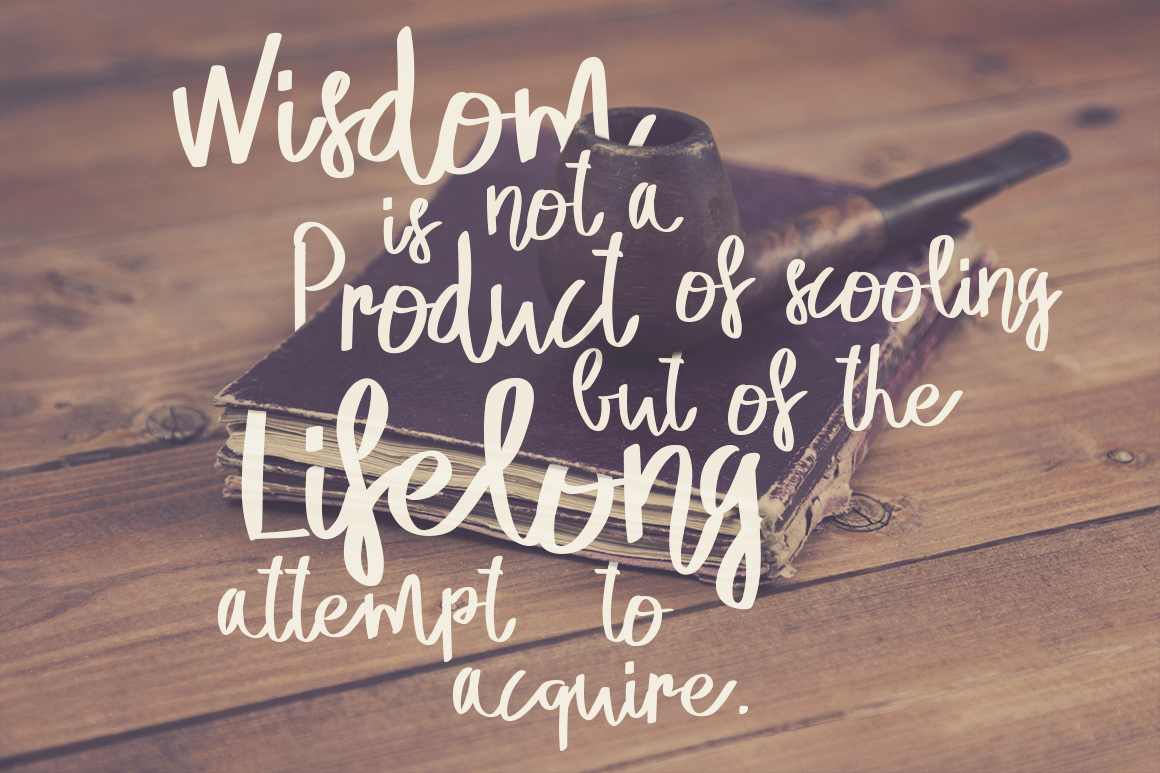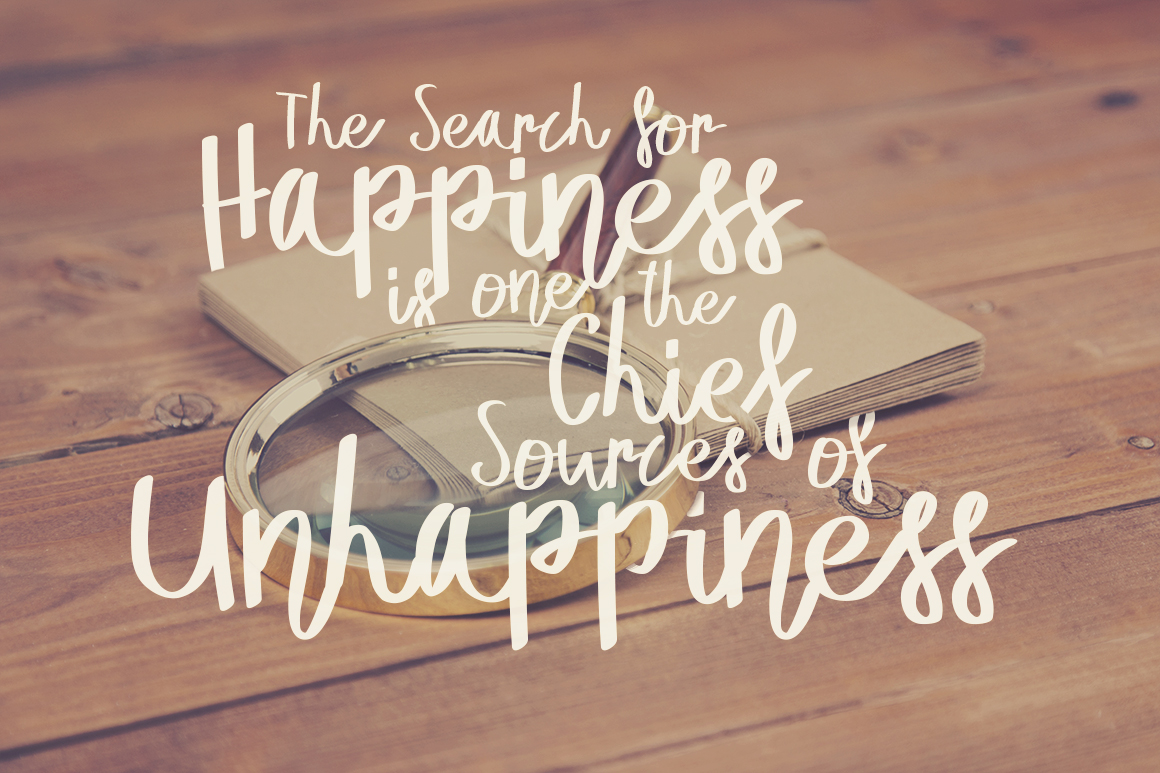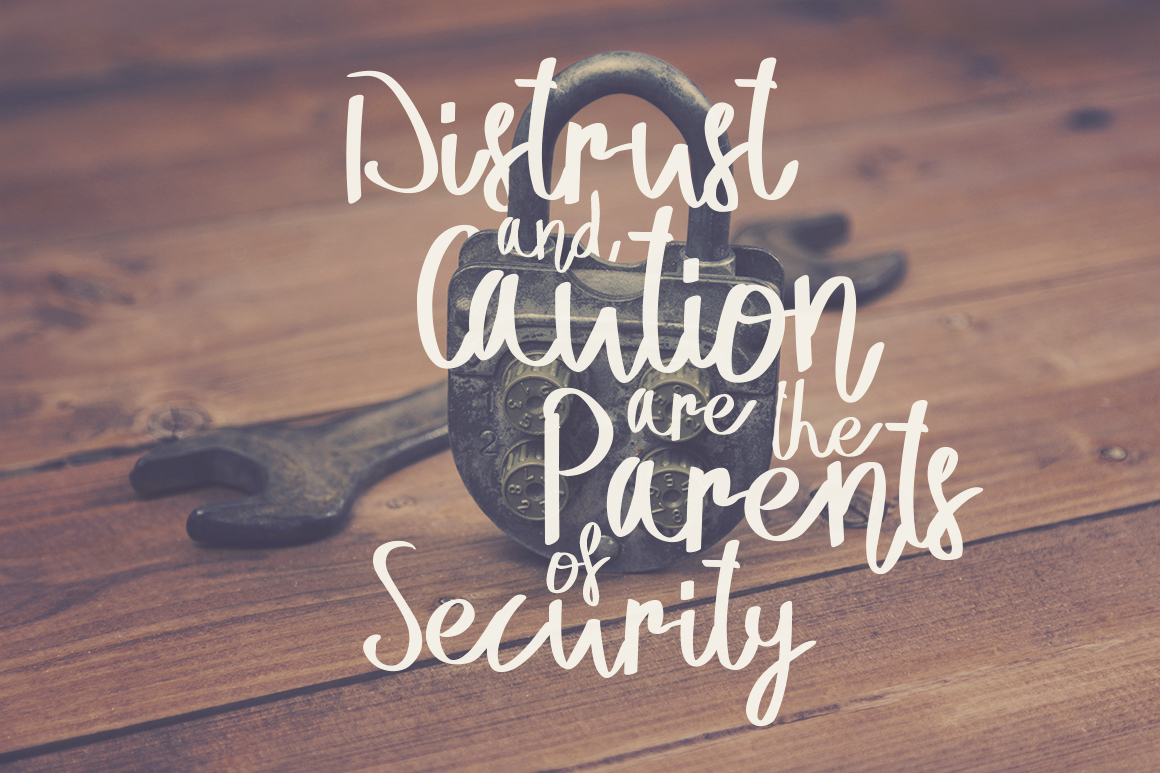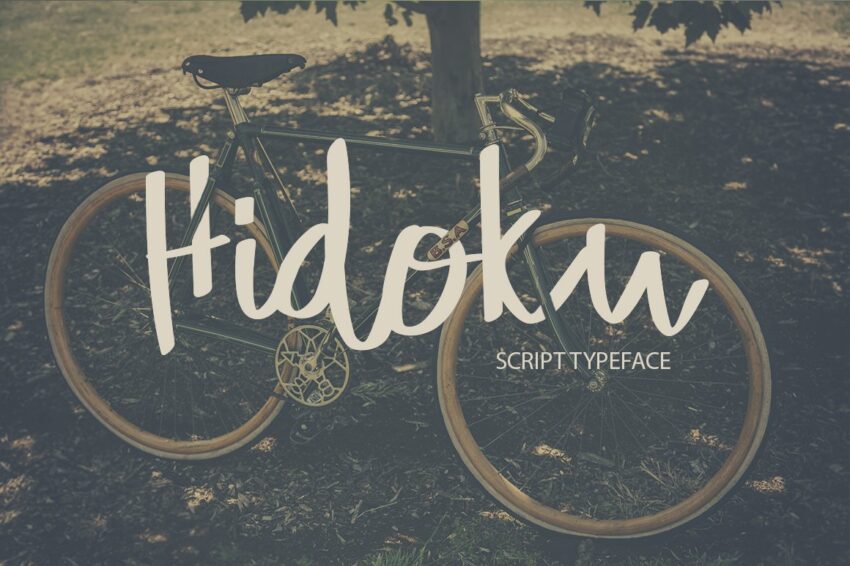
Introduction to Hidoku Font
Hidoku is a hand-drawn font with smooth letters.
This retro-hipster looking font is great for creating modern designs with a twist .